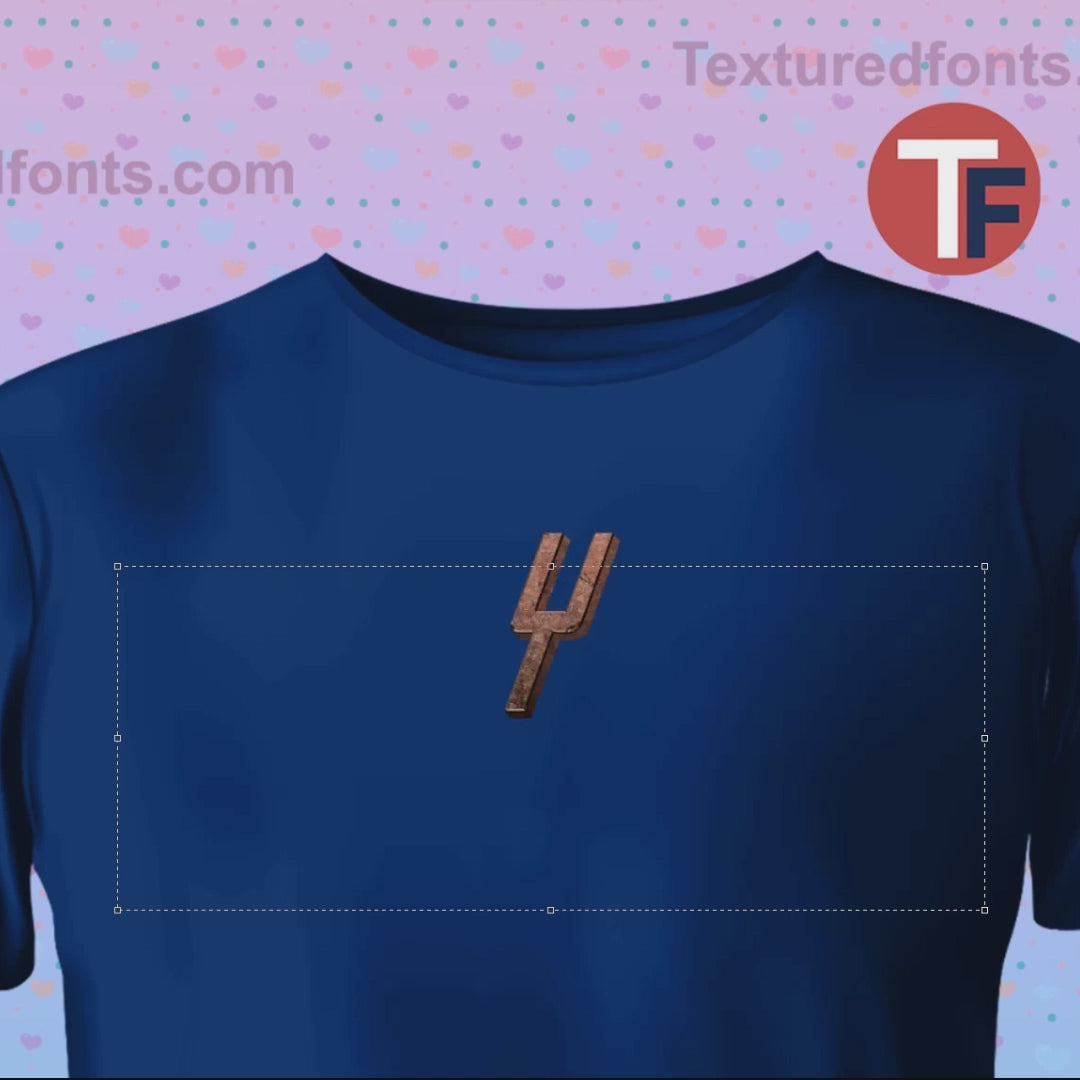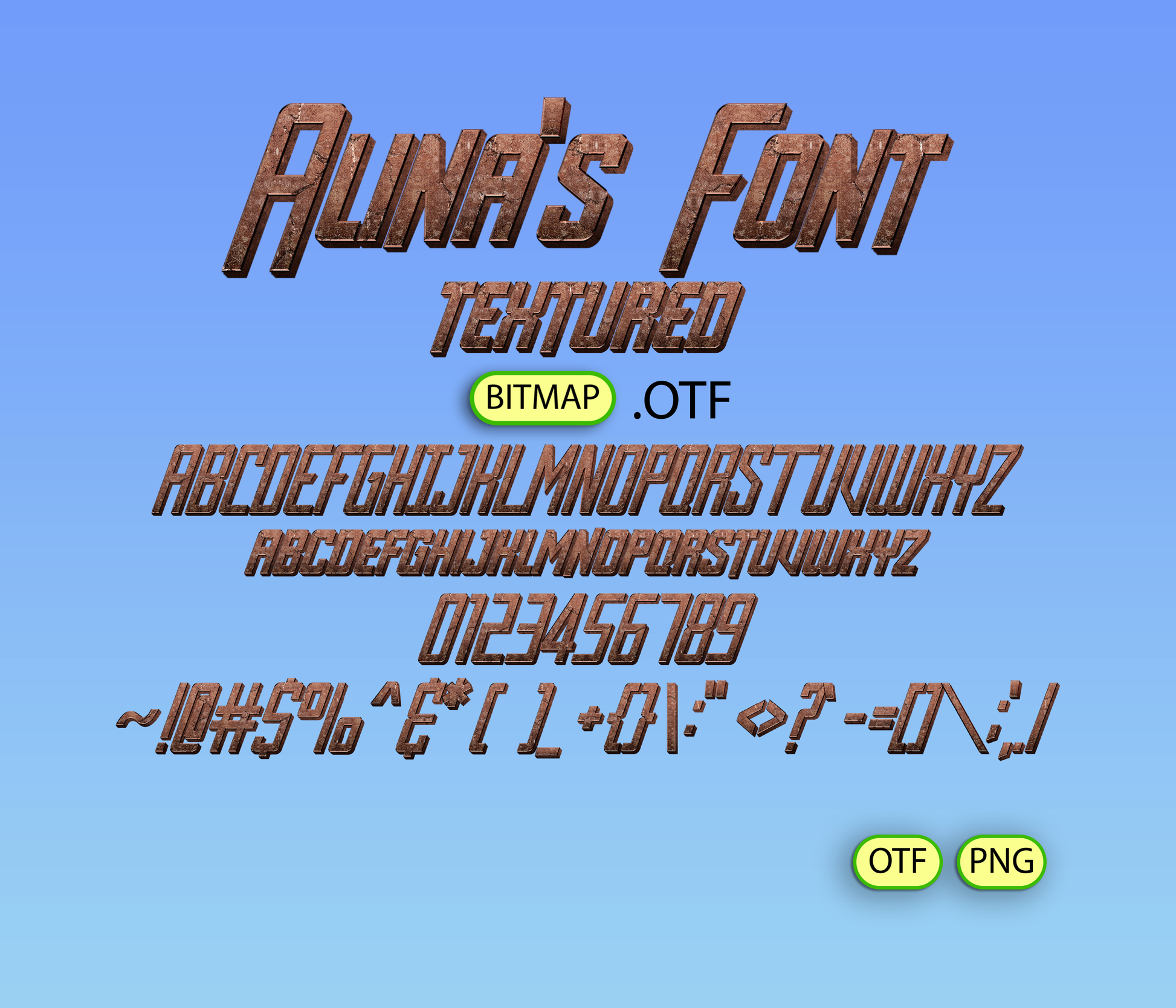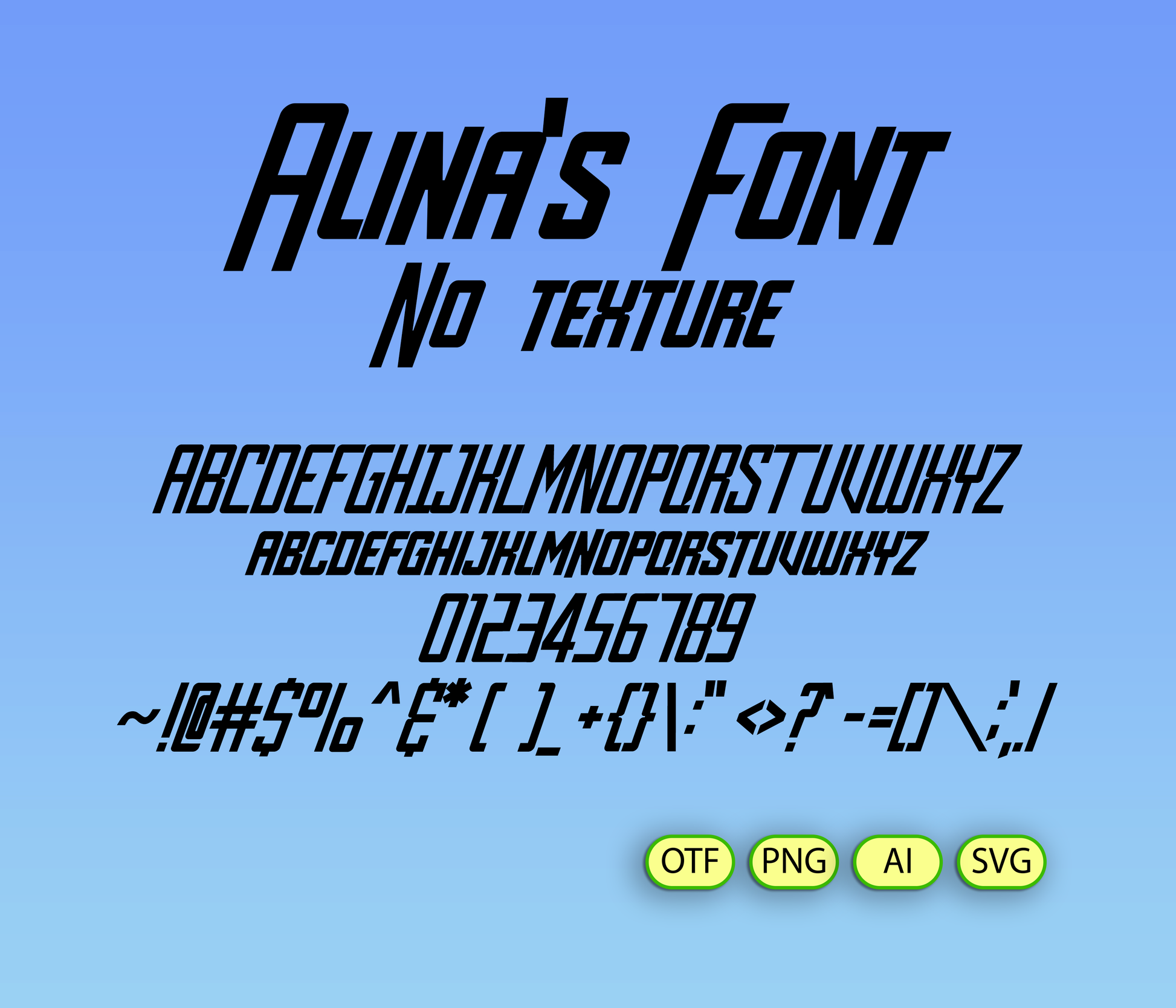
Stormstrike Font Textured
Electrify Your Designs with the Stormstrike Font
Unleash the power and intensity of the Stormstrike team with our specially designed font, inspired by the dynamic and action-packed superhero ensemble. Perfect for fans, comic book creators, and designers looking to add a bold, electrifying touch to their projects, this font captures the essence of the Stormstrike team's thrilling adventures. Whether you're creating event invitations, designing themed merchandise, or crafting digital content, our Stormstrike font ensures your projects resonate with the high-energy spirit and fierce style of the team.
Our Stormstrike font features sharp, angular lines and bold, striking characters that reflect the intensity and action of the superhero team. This versatile font is ideal for a wide range of applications:
1. Event Promotions: Perfect for creating bold invites, posters, and banners for comic conventions, fan meet-ups, or superhero-themed parties.
2. Merchandise Design: Ideal for designing t-shirts, posters, and accessories that capture the essence of the Lightning Force.
3. Digital Media: Enhance websites, blogs, and social media content with striking headers and graphics.
4. Educational Materials: Use in presentations, worksheets, and educational content focused on comics, heroism, or storytelling.
5. Personal Projects: Add a dynamic touch to scrapbooking, DIY crafts, or home decor inspired by the adventures of the Lightning Force.
To ensure maximum usability and flexibility, our Stormstrike-inspired font includes both textured and non-textured variants. The non-textured version is particularly beneficial, ensuring compatibility with all types of software, including Canva. This feature makes it easy for users of all skill levels to seamlessly incorporate the font into their designs, enhancing accessibility and convenience across various digital and print platforms.
Stormstrike Font Generator
Many people seek out a Stormstrike Font generator online to mimic the look of the Stormstrike Font. Steer clear! No font generator can match the quality of this Stormstrike Font, which comes in two versatile versions: a textured colored Stormstrike font and a simple Stormstrike font. This is particularly beneficial if you plan to use it with a cutting machine.
Our Stormstrike font not only pays homage to the fierce and powerful superhero team but also empowers you to infuse your designs with their bold and dynamic energy. Whether you’re crafting promotional materials, designing unique merchandise, or adding a striking touch to personal projects, this font allows you to communicate with the high-impact style that defines the Stormstrike team. Ready to electrify your creations? This font is your tool to supercharge your designs with the unstoppable power of Stormstrike.